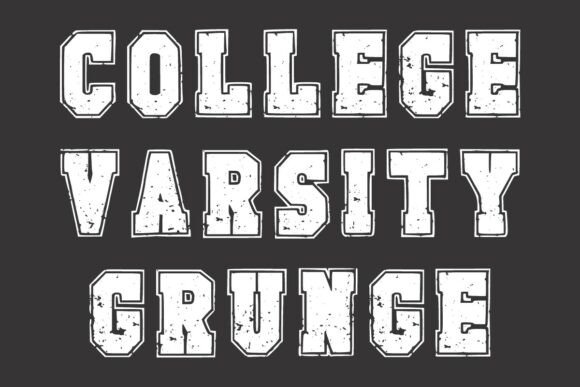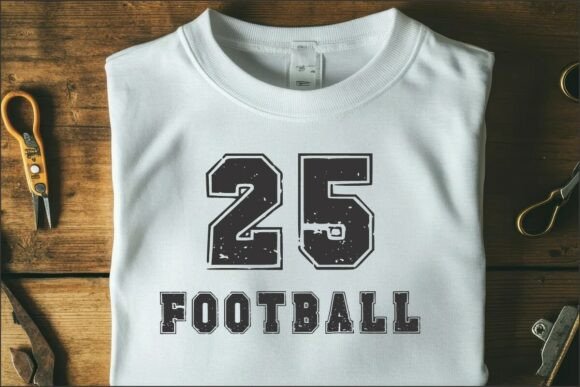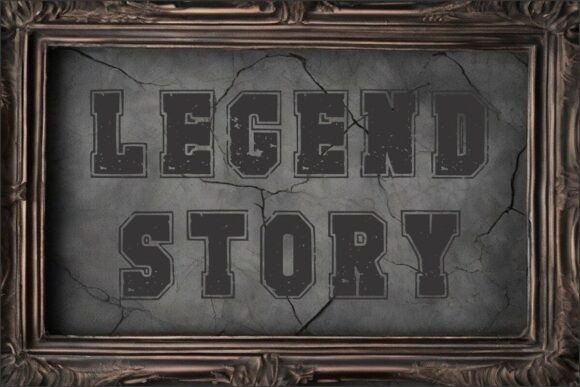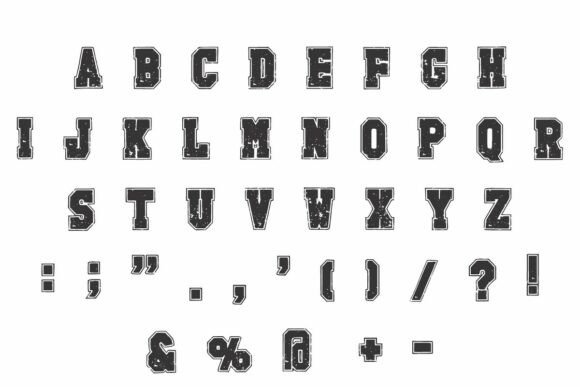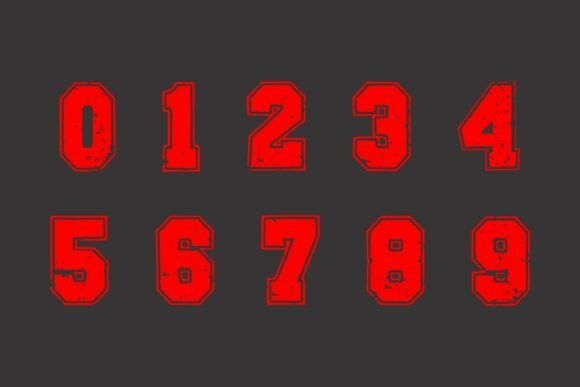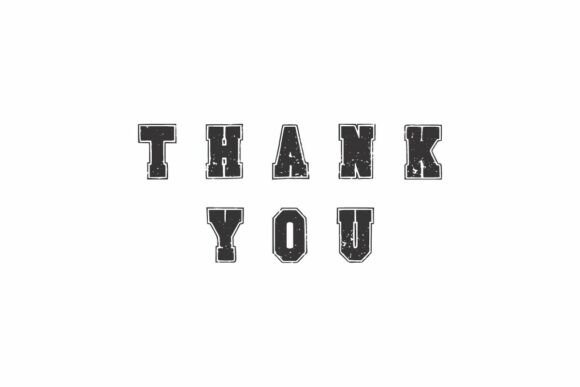
The Power of Black Falcon Font: Unleashing Bold Typography
I still remember the design project that led me to discover the Black Falcon Font. I was working on a sports team branding project, and my client asked for a bold, eye-catching typography that would make their team stand out. I scoured the internet for the perfect font, but nothing seemed to fit the bill. That was until I stumbled upon Black Falcon Font. Its rugged, varsity-style design and distressed grunge texture immediately caught my attention. I knew I had found the perfect fit.
I’ve had the pleasure of working with Black Falcon Font on several projects, and here’s what I think:
- ✨ Perfect for sports team branding: The font’s bold, athletic design makes it ideal for sports teams, fitness brands, and outdoor enthusiasts.
- ✅ Highly versatile: Black Falcon Font works well for posters, event titles, apparel design, logos, and retro-style projects.
- 👍 Easy to read: Despite its bold design, the font remains surprisingly legible, even at smaller sizes.
However, I do have a few minor quibbles:
- 🤔 Limited use for body text: While Black Falcon Font is amazing for headlines, it’s not the best choice for body text due to its bold design and distressed texture.
- ⚠️ May not work well for small sizes: The font’s distressed texture and bold design can make it difficult to read at very small sizes.
A Practical Guide: Using Black Falcon Font in Your Design Workflow
The Story Behind Black Falcon Font
Black Falcon Font was designed with the intention of capturing the spirit of classic collegiate and sports typography. The font’s creator drew inspiration from vintage athletic typography, combining bold block lettering with a distressed grunge texture. The result is a font that’s both strong and worn-in, perfect for designers who want to convey toughness, energy, and bold personality.
| What type of projects is Black Falcon Font best suited for? | Black Falcon Font is perfect for sports team branding, posters, event titles, apparel design, logos, and retro-style projects. |
| Is Black Falcon Font easy to read? | Yes, despite its bold design, Black Falcon Font remains surprisingly legible, even at smaller sizes. |
| Can I use Black Falcon Font for body text? | While Black Falcon Font is amazing for headlines, it’s not the best choice for body text due to its bold design and distressed texture. |
| Is Black Falcon Font available in different weights or styles? | Black Falcon Font comes in a single weight, but its OpenType features, such as Stylistic Alternates and Glyphs, offer a range of design options. |